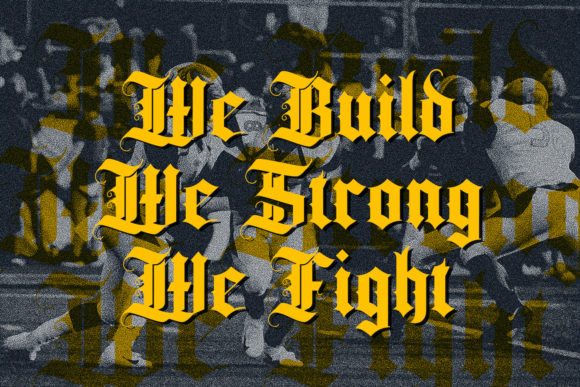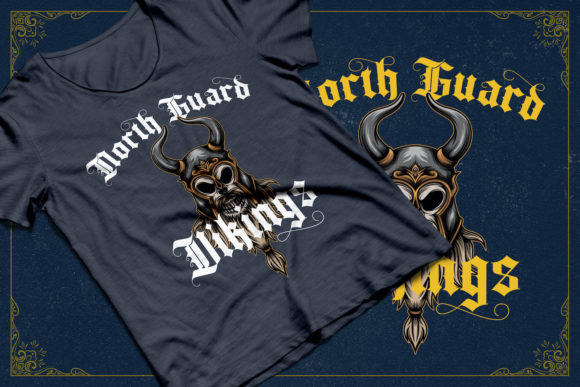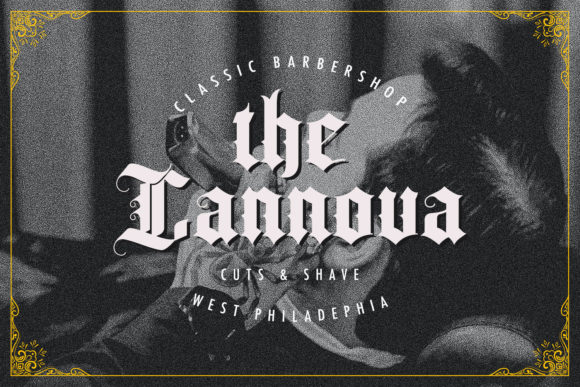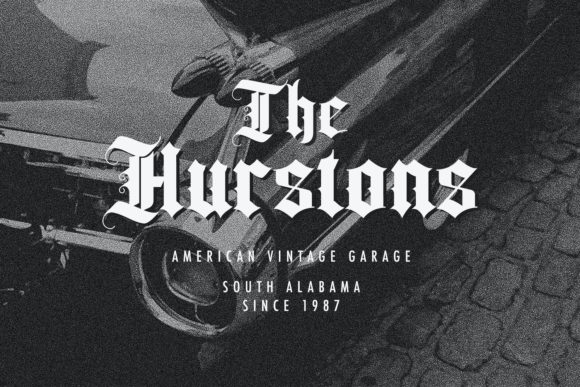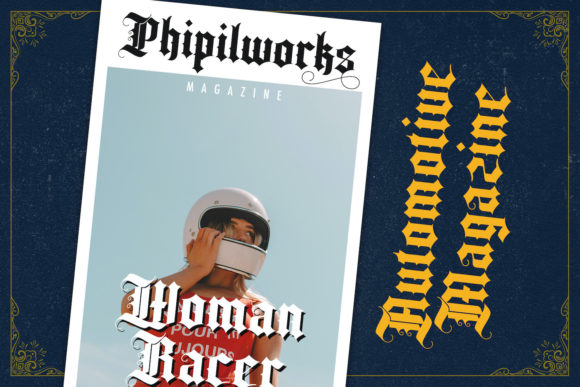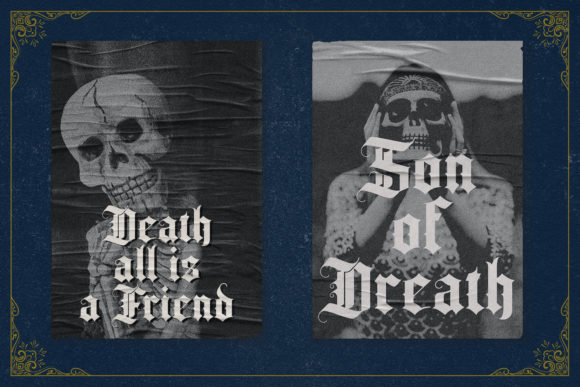
Bahisy Font: Unleash Your Creativity with this Authentic Blackletter Font
Bahisy is an incredibly authentic and daring blackletter font that can add a touch of uniqueness to your creative projects. With its bold and striking appearance, this font is sure to make your designs stand out from the crowd. In this article, we’ll explore the features and benefits of Bahisy font, and how it can elevate your creative ideas to the next level.
What is Bahisy Font?
Bahisy is a blackletter font that exudes a sense of boldness and authenticity. Its intricate and ornate design makes it perfect for creating eye-catching headlines, titles, and graphics. The font’s unique and daring style is inspired by traditional blackletter typography, but with a modern twist that sets it apart from other fonts in its category.
Key Features of Bahisy Font
- Authentic Blackletter Style: Bahisy font boasts an authentic blackletter style that is reminiscent of traditional Gothic typography.
- Bold and Striking Appearance: The font’s bold and striking appearance makes it perfect for creating eye-catching headlines and titles.
- Intricate and Ornate Design: Bahisy font features an intricate and ornate design that adds a touch of elegance and sophistication to any design.
- Multilingual Support: The font supports multiple languages, making it a versatile choice for designers and crafters.
Benefits of Using Bahisy Font
So, why should you choose Bahisy font for your creative projects? Here are just a few benefits of using this amazing font:
- Adds a Touch of Uniqueness: Bahisy font adds a touch of uniqueness and individuality to your designs, setting them apart from the crowd.
- Perfect for Headlines and Titles: The font’s bold and striking appearance makes it perfect for creating eye-catching headlines and titles.
- Elegant and Sophisticated: Bahisy font adds a touch of elegance and sophistication to any design, making it perfect for luxury brands and high-end products.
- Versatile and Flexible: The font is versatile and flexible, making it suitable for a wide range of creative projects, from posters and flyers to logos and branding.
How to Use Bahisy Font in Your Designs
Using Bahisy font in your designs is easy and straightforward. Here are a few tips to get you started:
- Pair it with a Simple Font: Pair Bahisy font with a simple font to create a striking contrast and add visual interest to your design.
- Use it for Headlines and Titles: Use Bahisy font for headlines and titles to create a bold and eye-catching effect.
- Experiment with Colors and Textures: Experiment with different colors and textures to add depth and visual interest to your design.
In conclusion, Bahisy font is an incredibly authentic and daring blackletter font that can add a touch of uniqueness and elegance to your creative projects. With its bold and striking appearance, intricate and ornate design, and versatile and flexible nature, this font is perfect for designers and crafters looking to create eye-catching and memorable designs. So why wait? Add Bahisy font to your favorite creative ideas and notice how it makes them stand out!